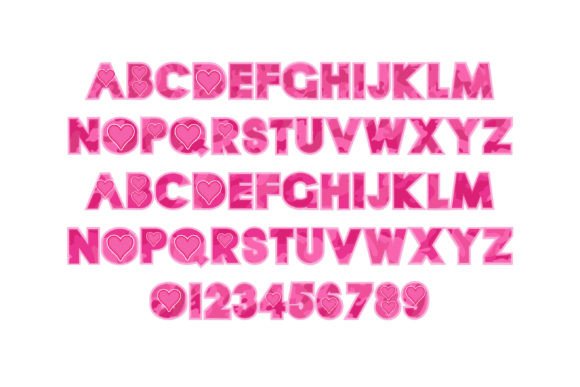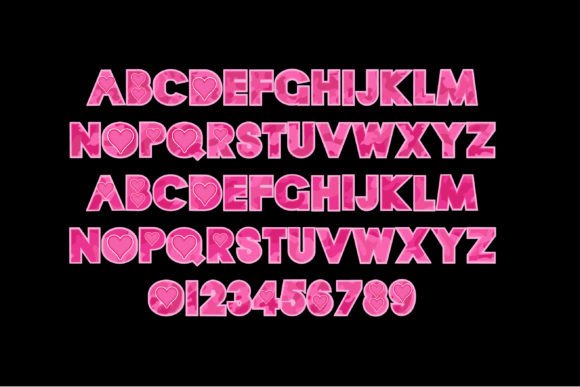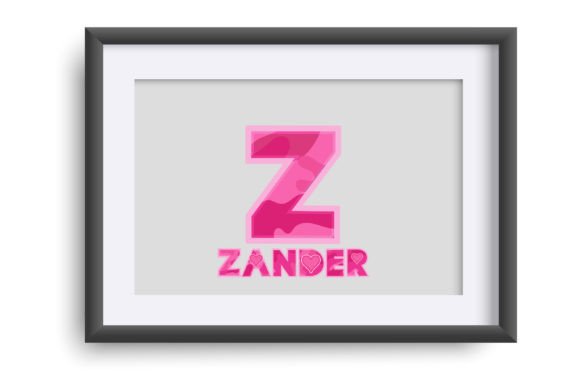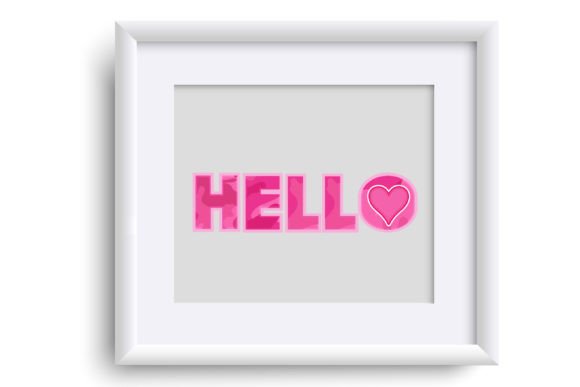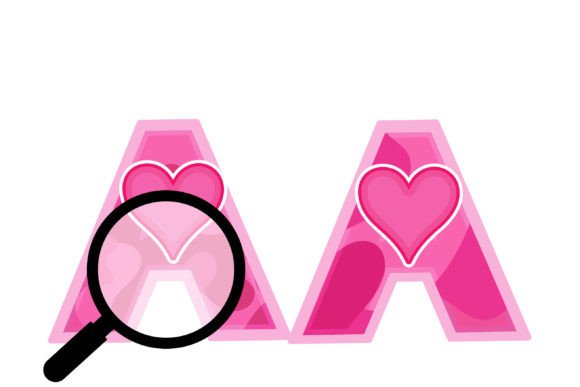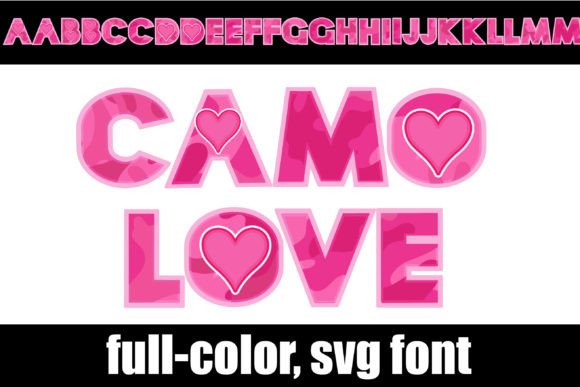
Camo Love Font: Elevate Your Designs with a Vibrant and Modern Twist
Are you tired of using the same old fonts in your designs? Look no further than the Camo Love Font, a colorful and lovely font that is sure to brighten up any design project. With its dynamic mix of bright and contrasting colors, this font adds a modern and fresh touch to any design, making it perfect for branding, advertising, and more.
What Makes Camo Love Font So Special?
The Camo Love Font is not just any ordinary font. Its unique blend of bright and contrasting colors gives it a distinctive look that is sure to grab attention. Whether you’re working on a logo, brochure, or social media post, this font is guaranteed to make your design stand out from the crowd.
One of the key features of the Camo Love Font is its modern and fresh aesthetic. The font’s colorful and playful design makes it perfect for designers and crafters who want to add a touch of personality to their work. Whether you’re creating a design for a fashion brand, a food blog, or a lifestyle website, this font is sure to bring a smile to your audience’s face.
The Camo Love Font is a versatile font that is perfect for a wide range of design projects. Whether you’re a professional designer or a crafter working on a personal project, this font is sure to inspire your creativity. Here are just a few ways you can use the Camo Love Font:
- Branding: Use the Camo Love Font to create a unique and memorable logo for your business or brand.
- Advertising: Add a pop of color and personality to your ads with this eye-catching font.
- Social Media: Use the Camo Love Font to create engaging social media posts that stand out from the crowd.
- Stationery: Add a touch of whimsy to your stationery designs, such as business cards, brochures, and flyers.
- Crafting: Use the Camo Love Font to create personalized crafts, such as iron-on designs, stickers, and scrapbooking pages.
Tips for Using the Camo Love Font
Here are a few tips for getting the most out of the Camo Love Font:
- Experiment with colors: The Camo Love Font is all about bright and contrasting colors, so don’t be afraid to experiment with different color combinations to find the one that works best for your design.
- Mix and match: Try pairing the Camo Love Font with other fonts to create a unique and interesting contrast.
In conclusion, the Camo Love Font is a vibrant and modern font that is sure to elevate your designs and add a touch of personality to your work. With its dynamic mix of bright and contrasting colors, PUA encoding, and versatility, this font is perfect for designers and crafters alike. So why settle for boring and ordinary fonts when you can add a pop of color and whimsy to your designs with the Camo Love Font?
Whether you’re working on a branding project, advertising campaign, or personal crafting project, the Camo Love Font is sure to inspire your creativity and help you create something truly special. So go ahead, give it a try, and see the difference it can make in your designs!